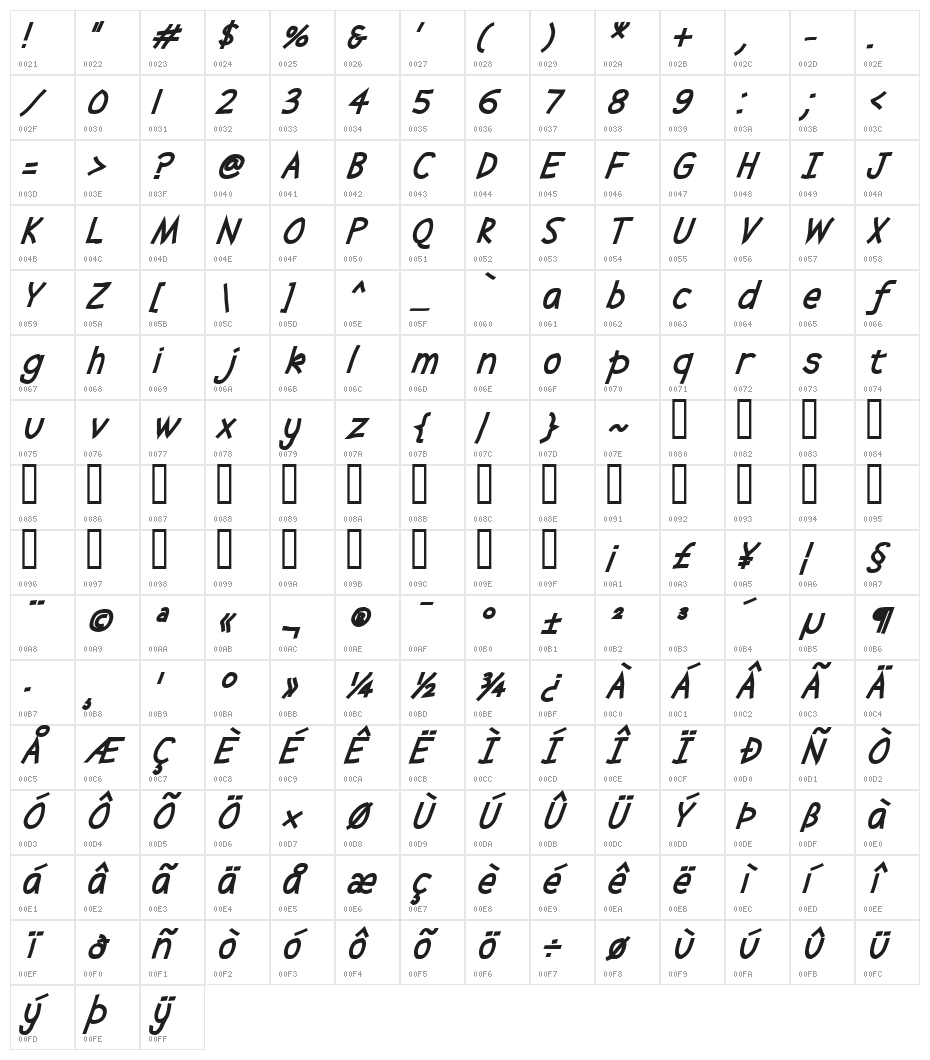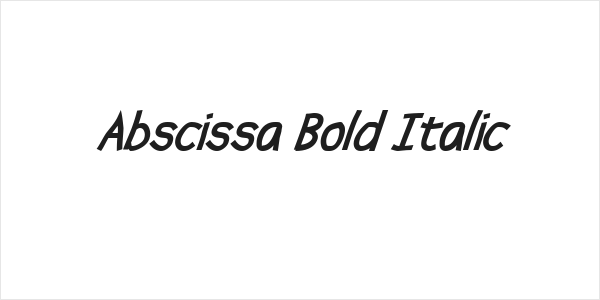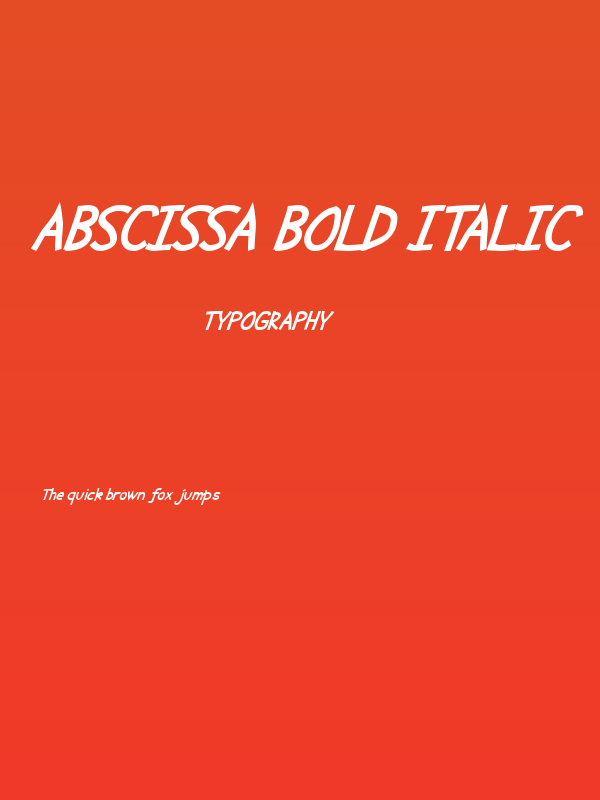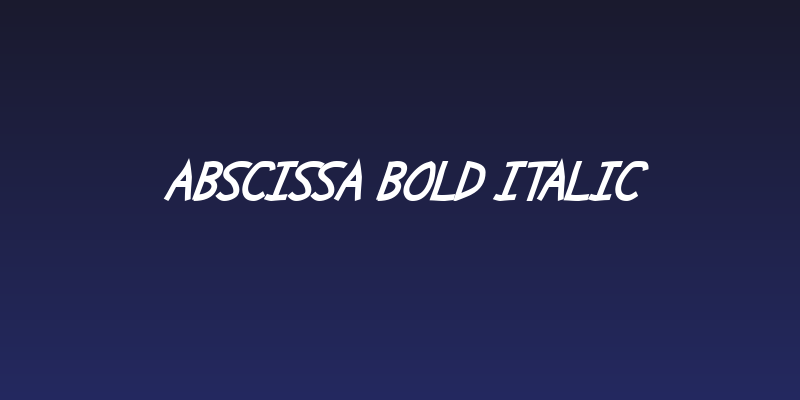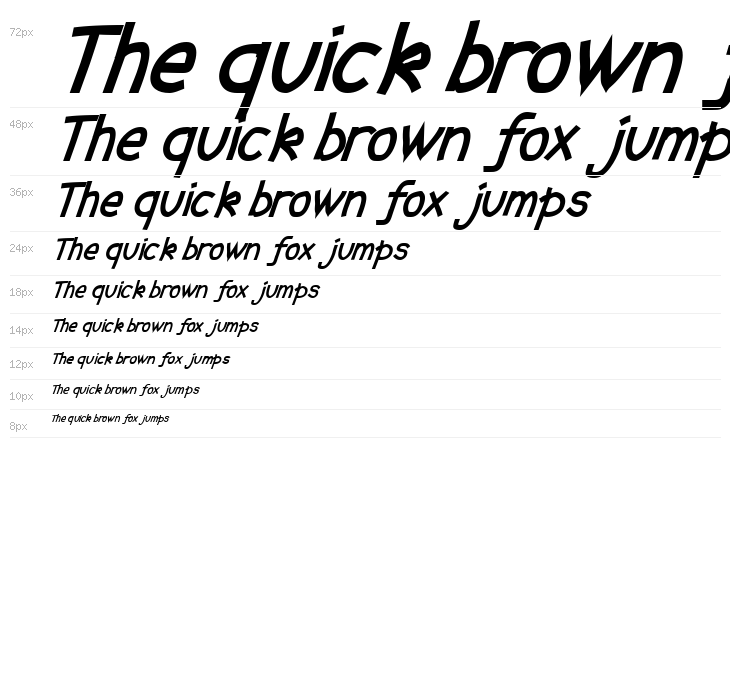
Abscissa Bold Italic Font
Abscissa Bold Italic Description
This font exhibits a dynamic and energetic style with its bold and italicized form. The characters are sharply angled, giving a sense of motion and speed. The uppercase and lowercase letters maintain a consistent slant, enhancing the italic effect. The numerals and special characters follow the same stylistic approach, ensuring uniformity across all glyphs. The strokes are thick and confident, contributing to the bold appearance, while the italic slant adds a touch of elegance and flair. This combination makes it suitable for projects that require a strong yet stylish visual impact.
| Proposed Projects | Ideal for sports branding, dynamic posters, modern advertising, and energetic logo designs. |